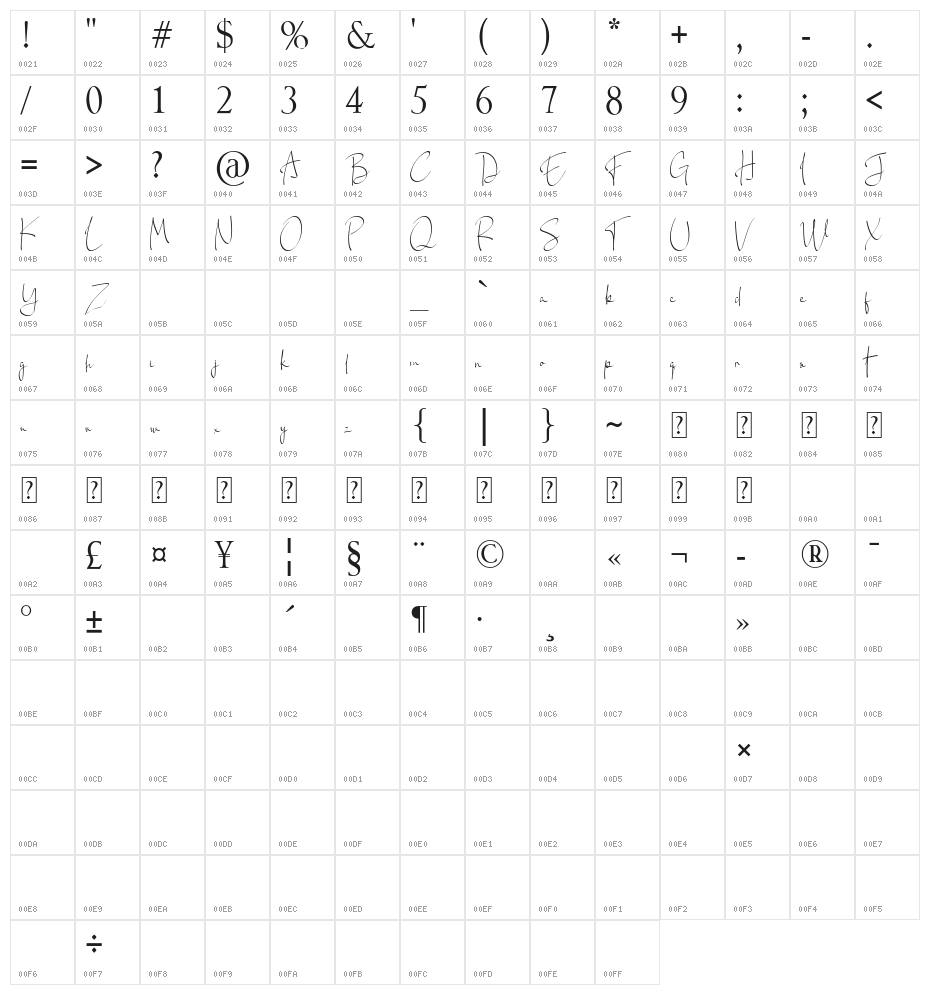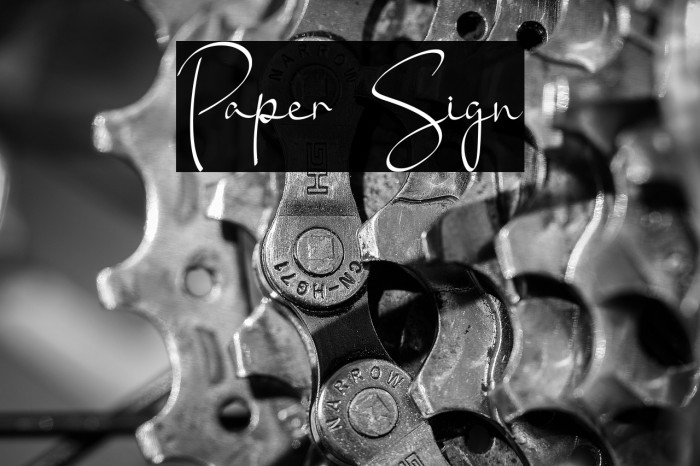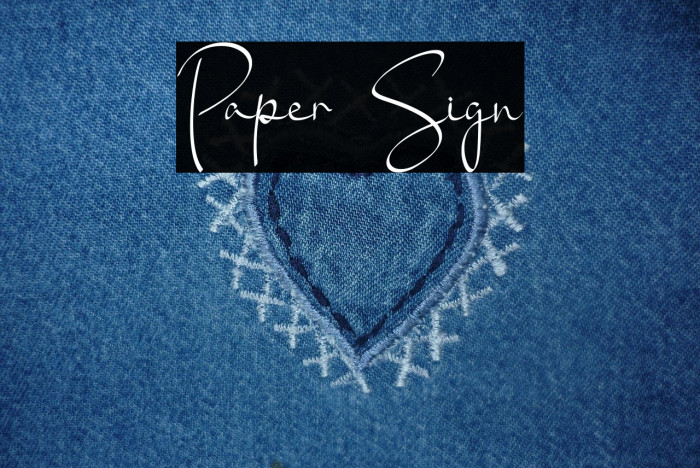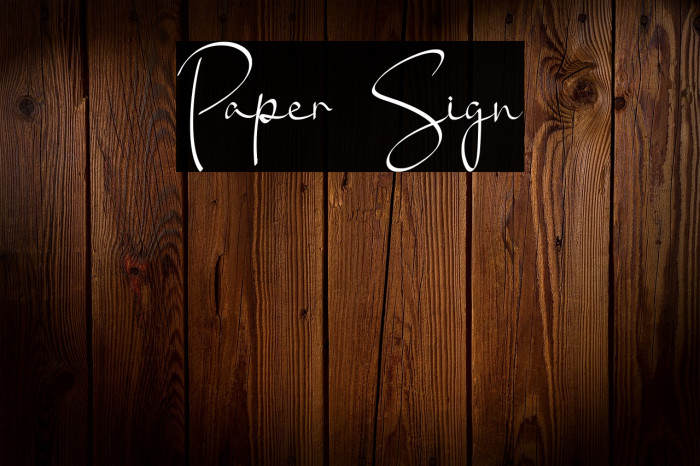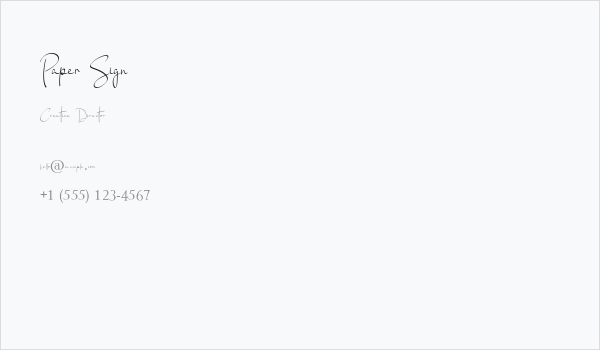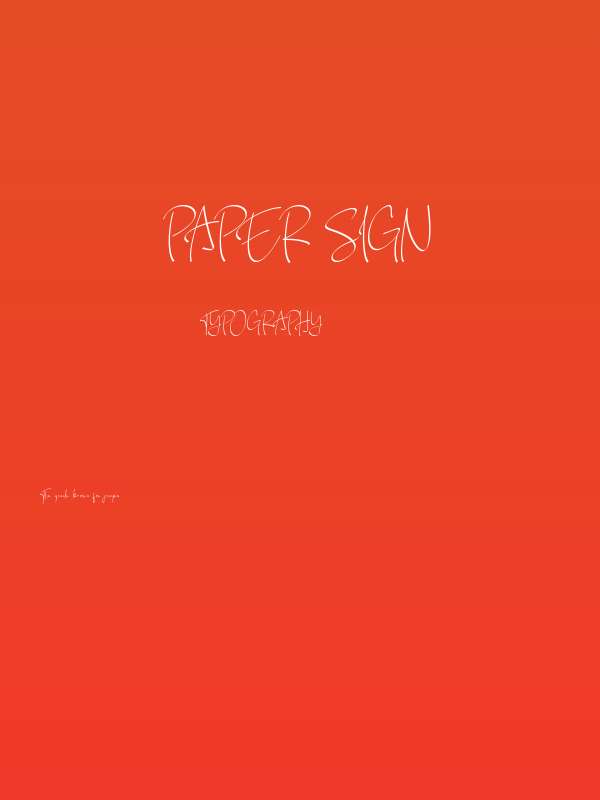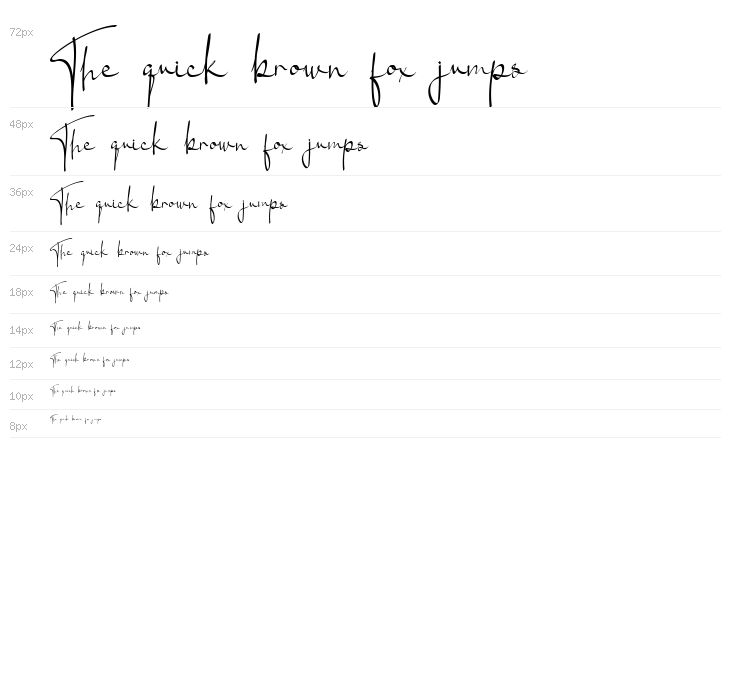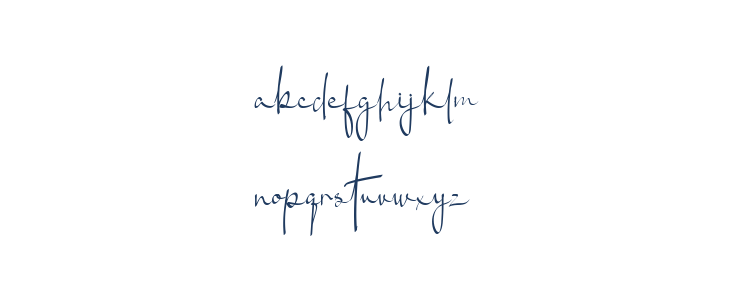
Paper Sign Font
Paper Sign Description
This font features a unique blend of elegance and modernity, characterized by its flowing, cursive-like uppercase letters and more structured lowercase characters. The uppercase letters exhibit a graceful, sweeping style with elongated strokes, giving them a sense of movement and fluidity. In contrast, the lowercase letters are more compact and balanced, maintaining a harmonious rhythm throughout. The numerals are bold and clear, providing excellent readability. Special characters are designed with the same attention to detail, ensuring consistency across all glyphs. This font's overall aesthetic is sophisticated and artistic, making it suitable for creative and expressive design projects.
| Use Case | Logos, Headlines, Artistic projects |
| Proposed Projects | Ideal for wedding invitations, branding, logo design, and artistic projects requiring a touch of elegance. |